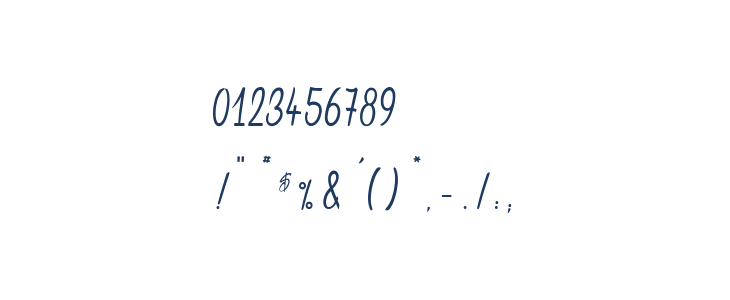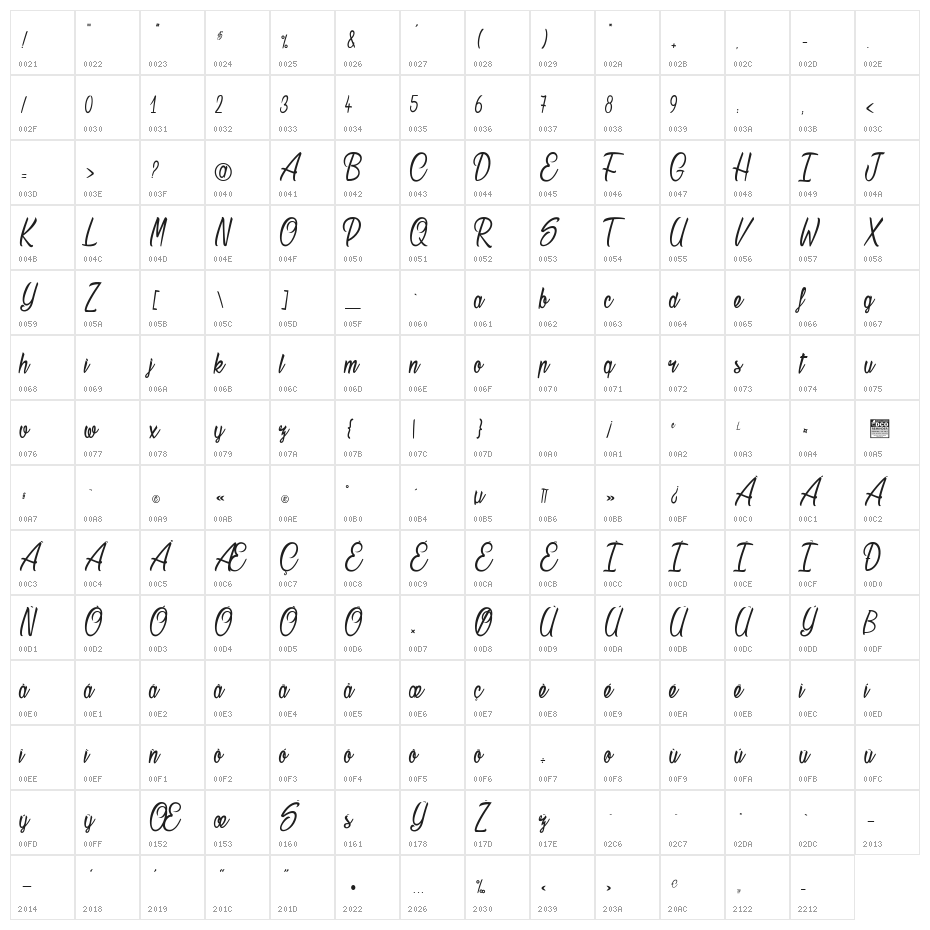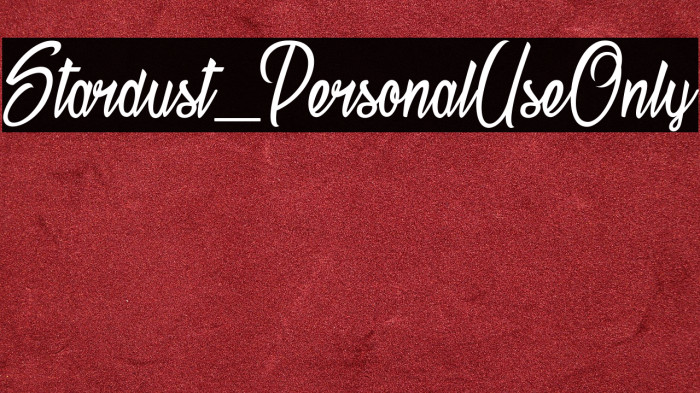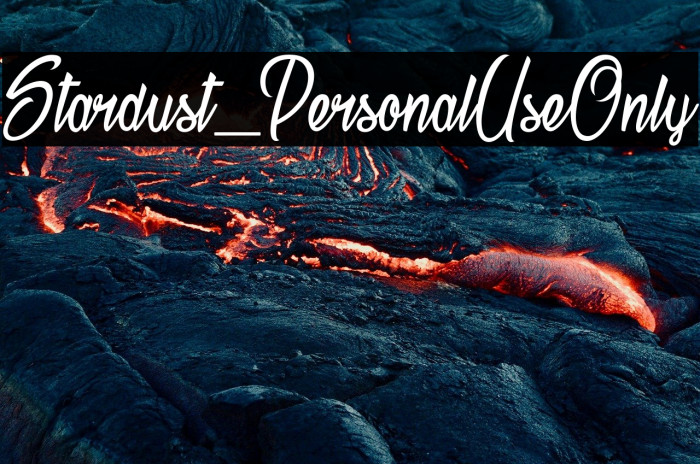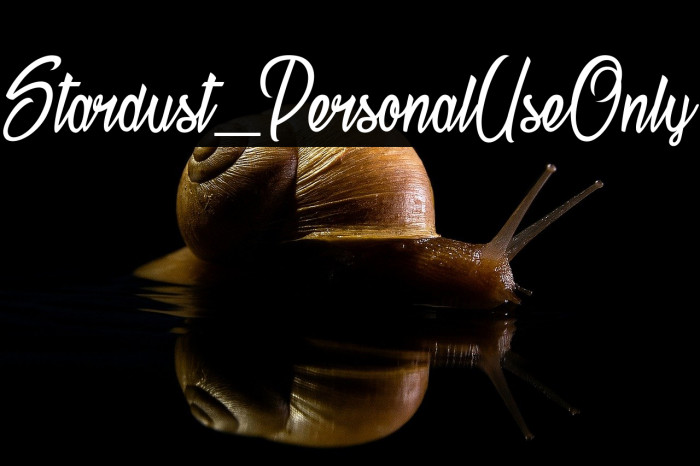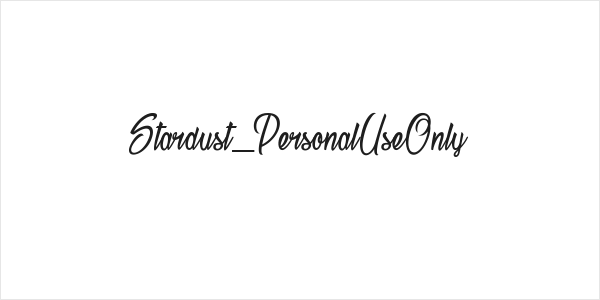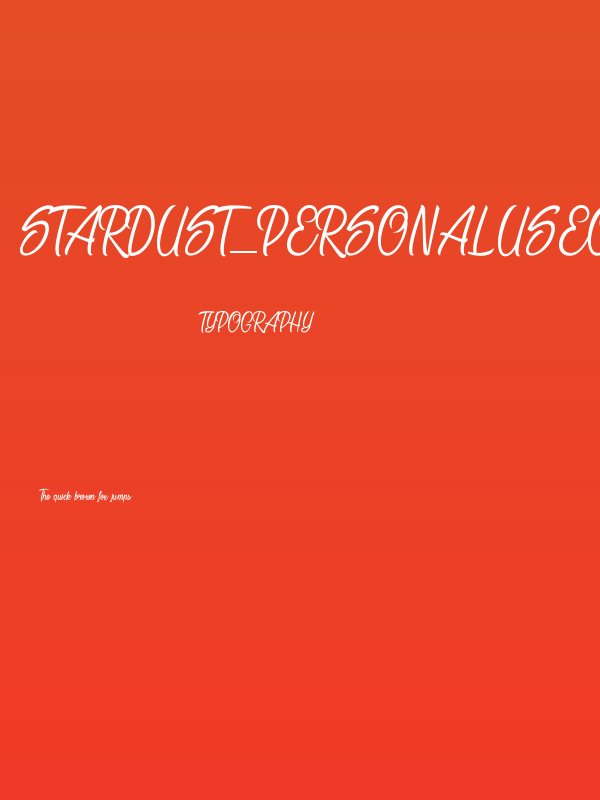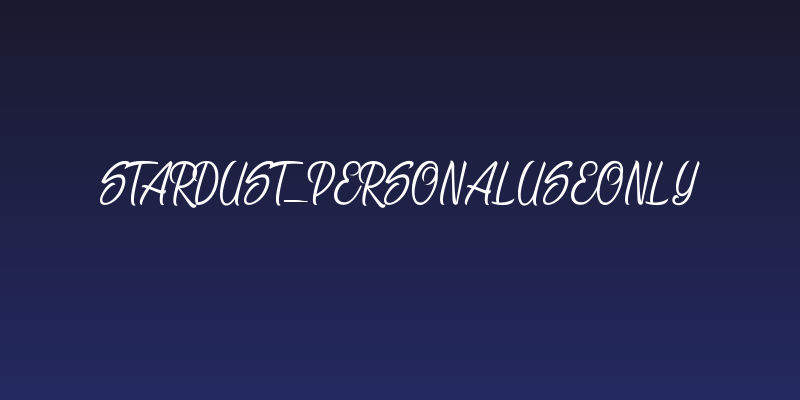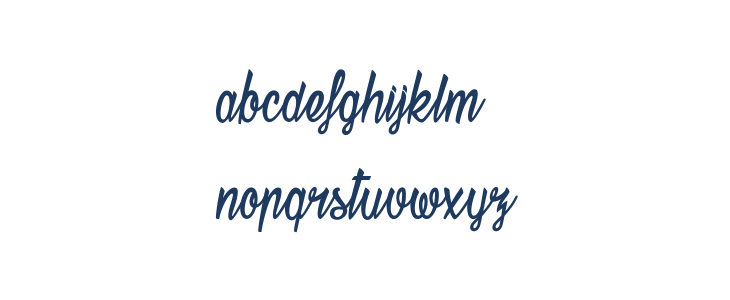
Stardust_PersonalUseOnly Font
Stardust_PersonalUseOnly Description
This font exudes a playful and elegant script style, characterized by its flowing, connected letters and smooth curves. The uppercase letters are tall and slightly slanted, giving a sense of movement and dynamism. The lowercase letters maintain a consistent flow, with rounded edges and a slight slant that enhances readability. The numerals are styled to match the script's fluidity, while the special characters integrate seamlessly, maintaining the overall aesthetic. This font's design is both sophisticated and approachable, making it suitable for a variety of creative applications.
| Use Case | Logos, Invitations, Greeting Cards |
| Proposed Projects | Ideal for wedding invitations, greeting cards, branding, and logo design. |